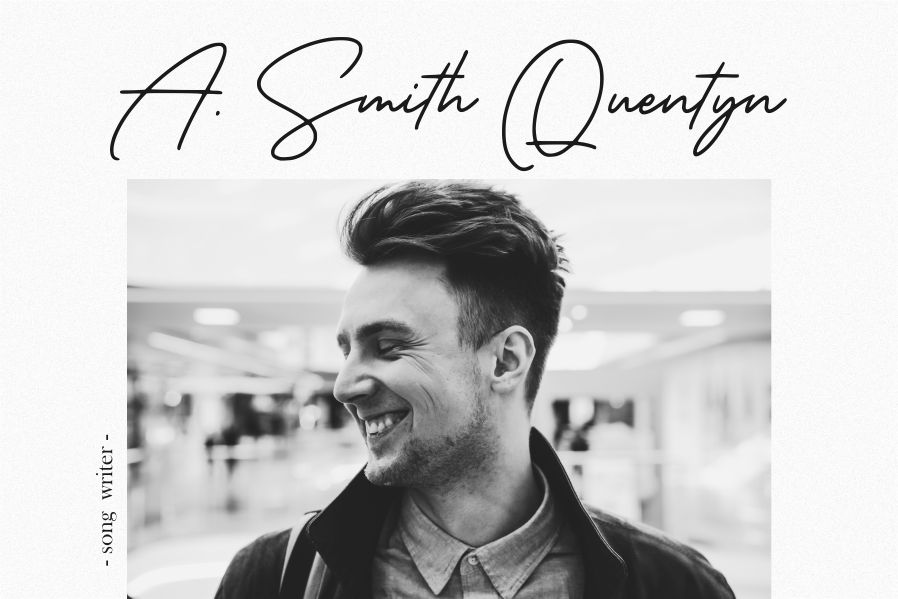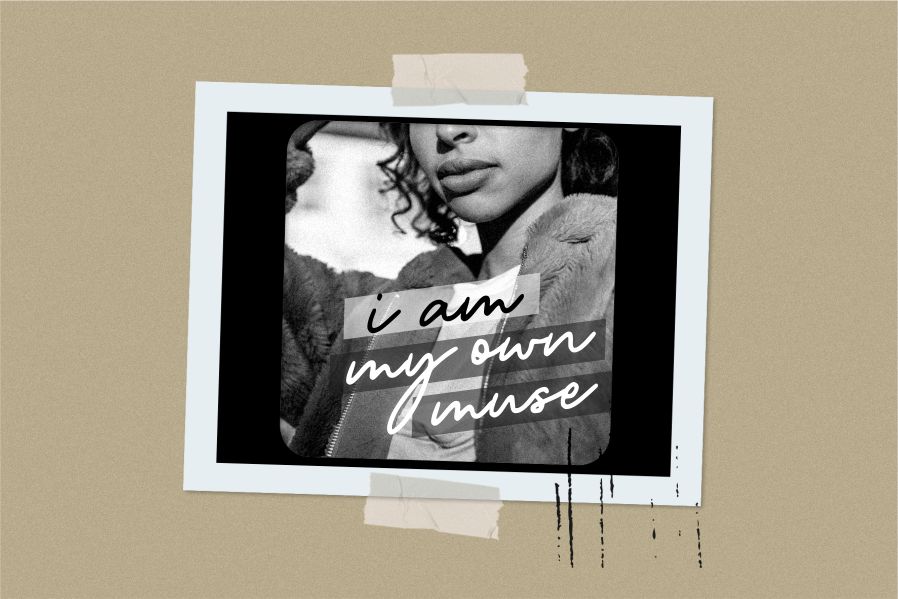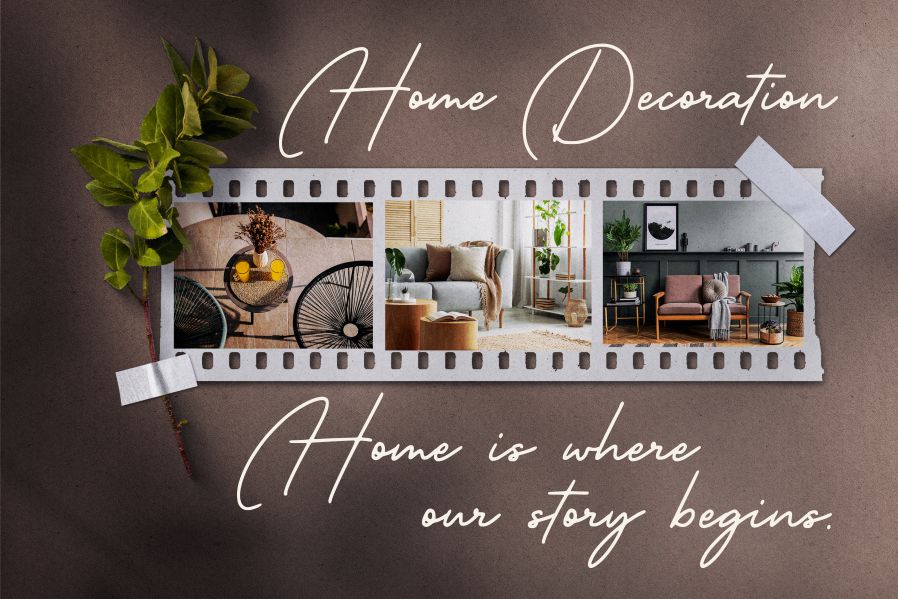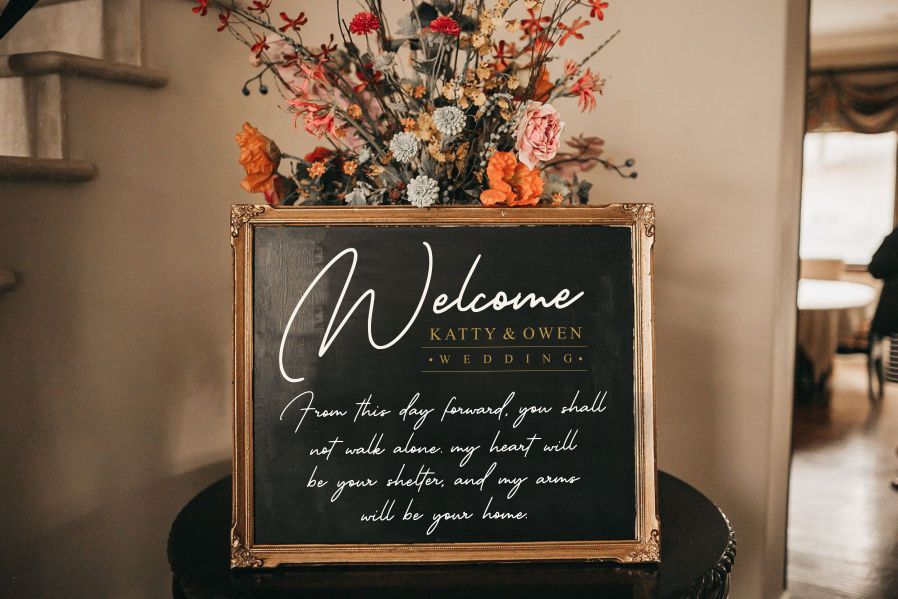
Melbourne Lighthouse Font
Melbourne Lighthouse Handwritten Font is a Modern Signature Font. Melbourne Lighthouse is perfect for product packaging, branding project, magazines, social media, weddings, or just used to express words above the background.